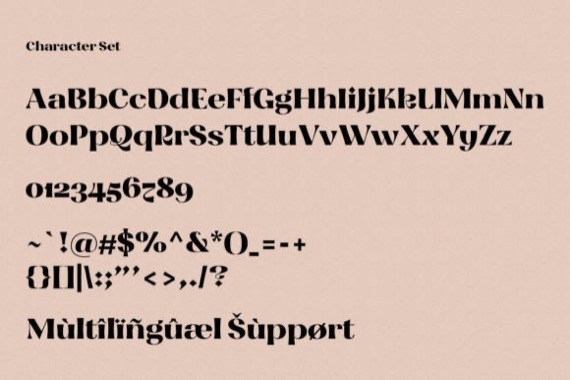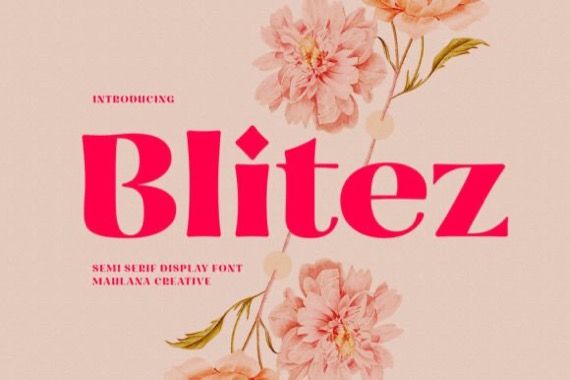
Introducing a new classy and cool basic typeface from Maulana Creative, Blitez is a modern semi-serif display font. Bold stroke, fun character with a bit of ligatures and alternates. This font is good for logo design, Social media, Movie Titles, Books Titles, short text even long text letters, and is good for your secondary text font with script or serif. Make a stunning work with Blitez font.
Blitez Display Serif Font